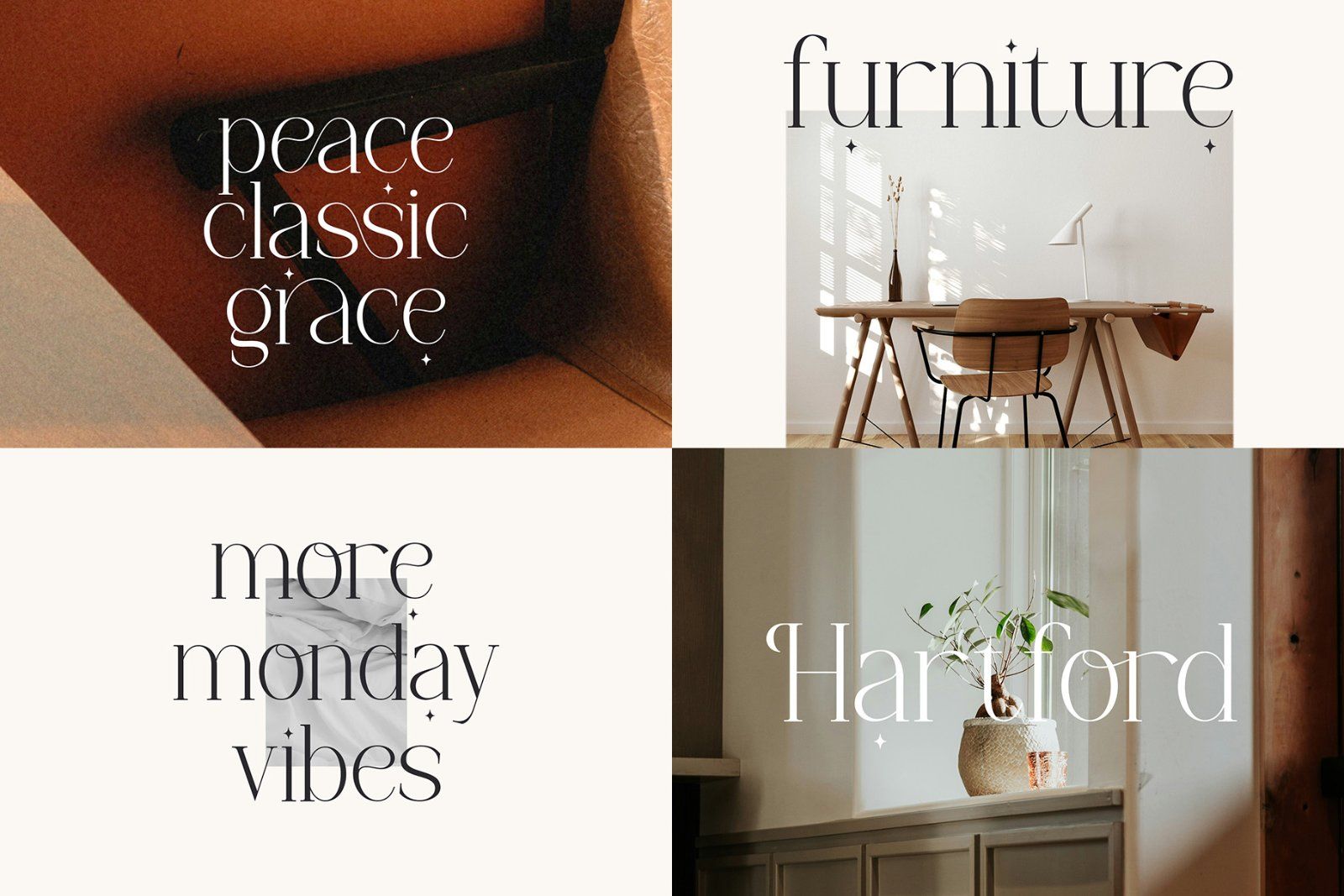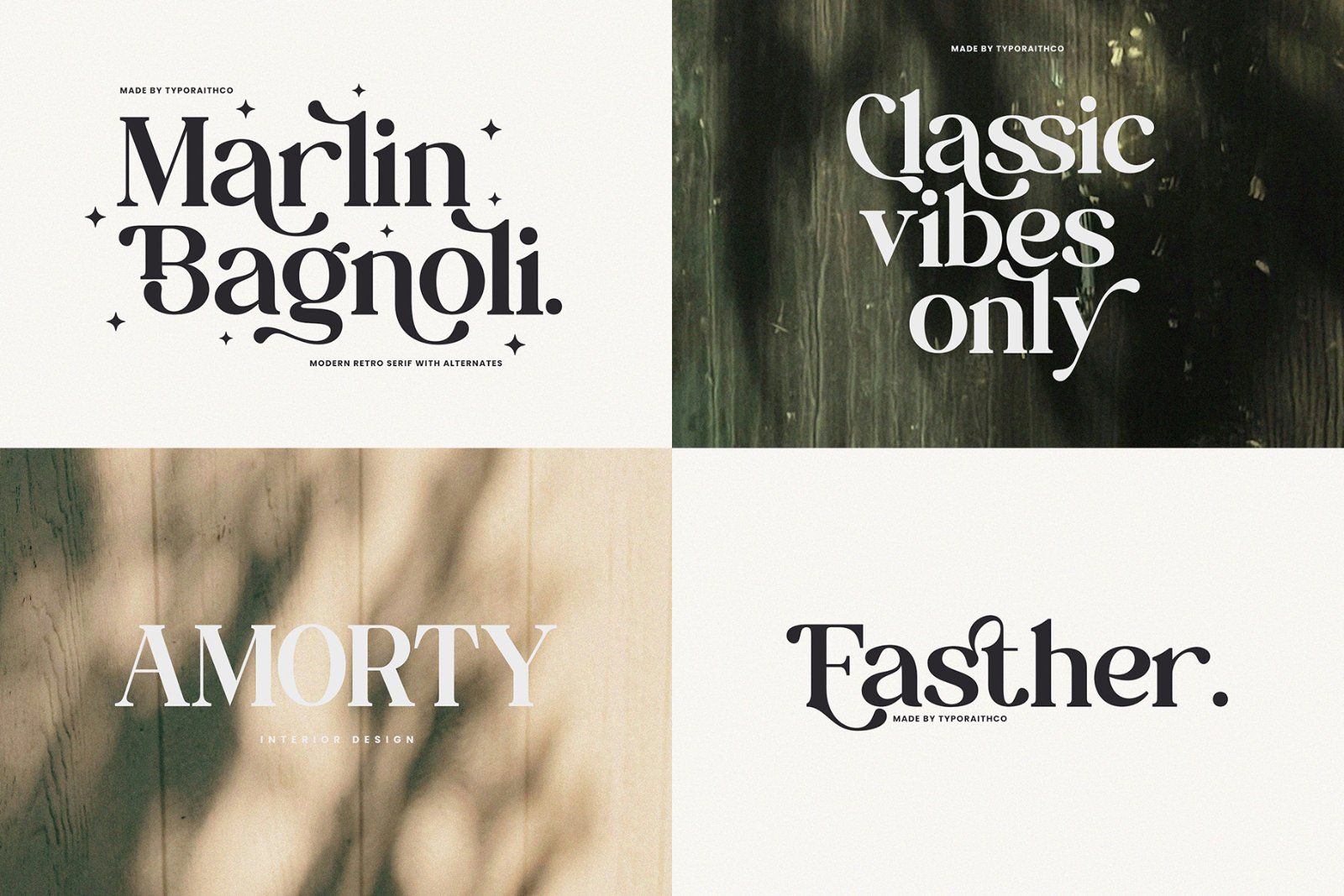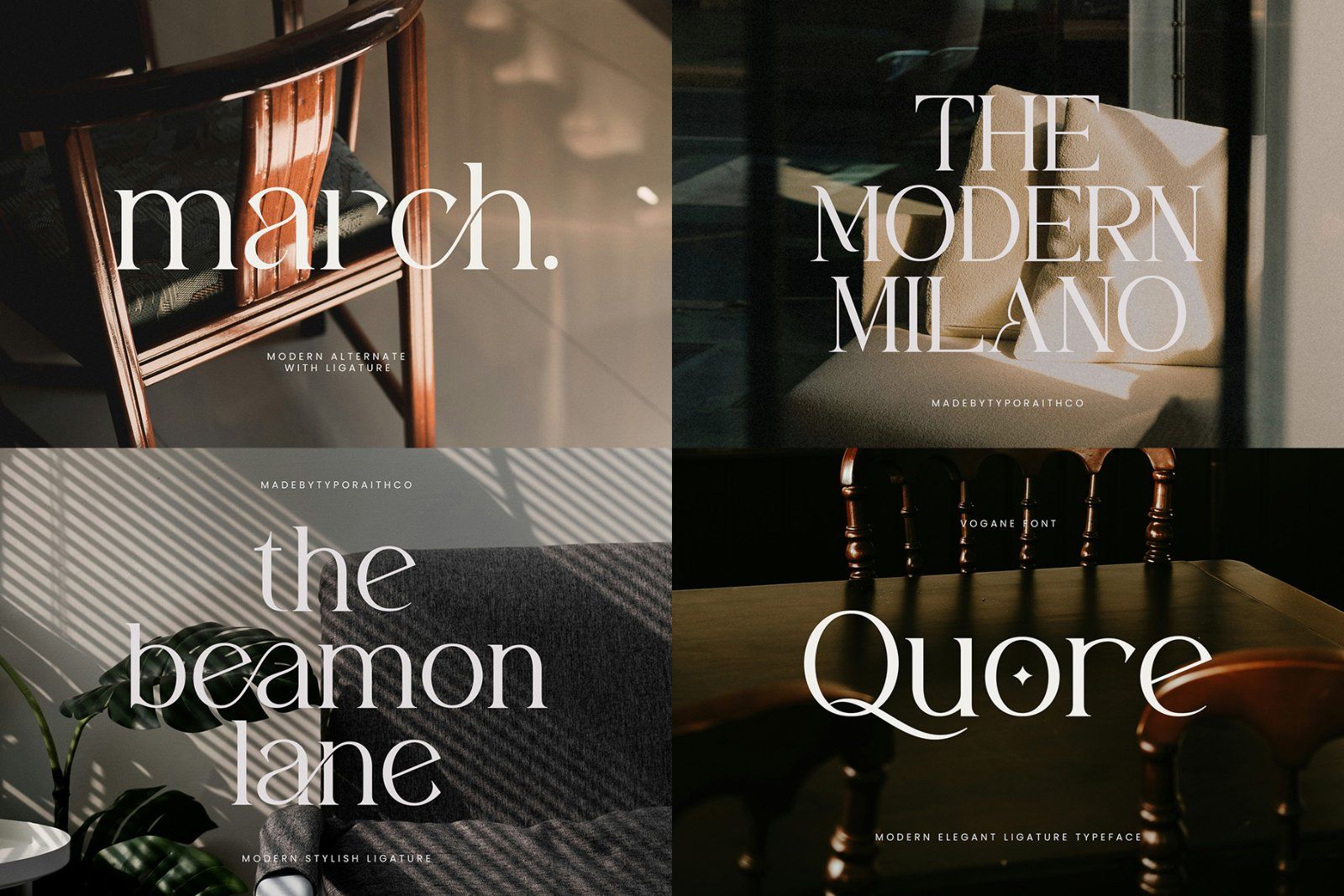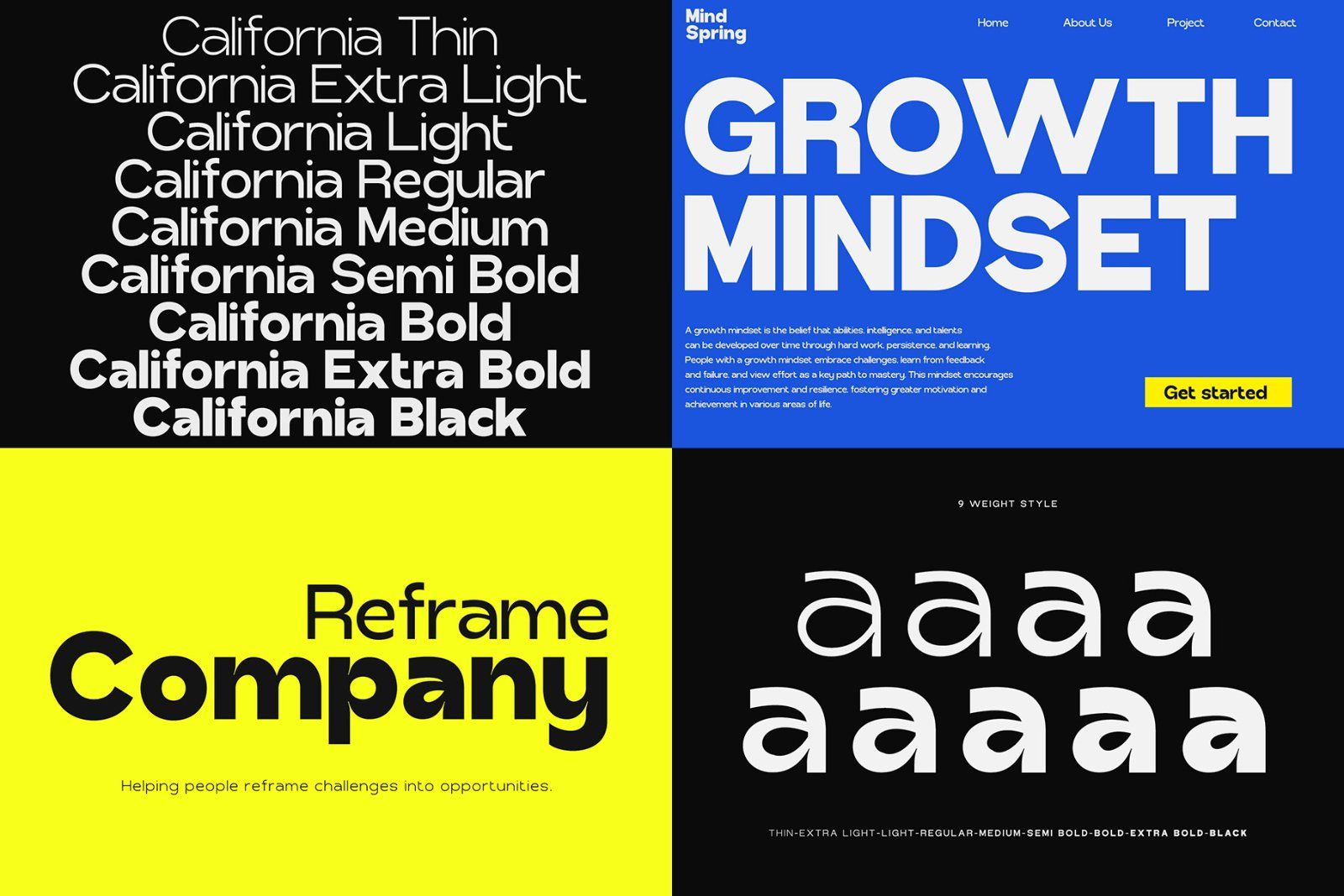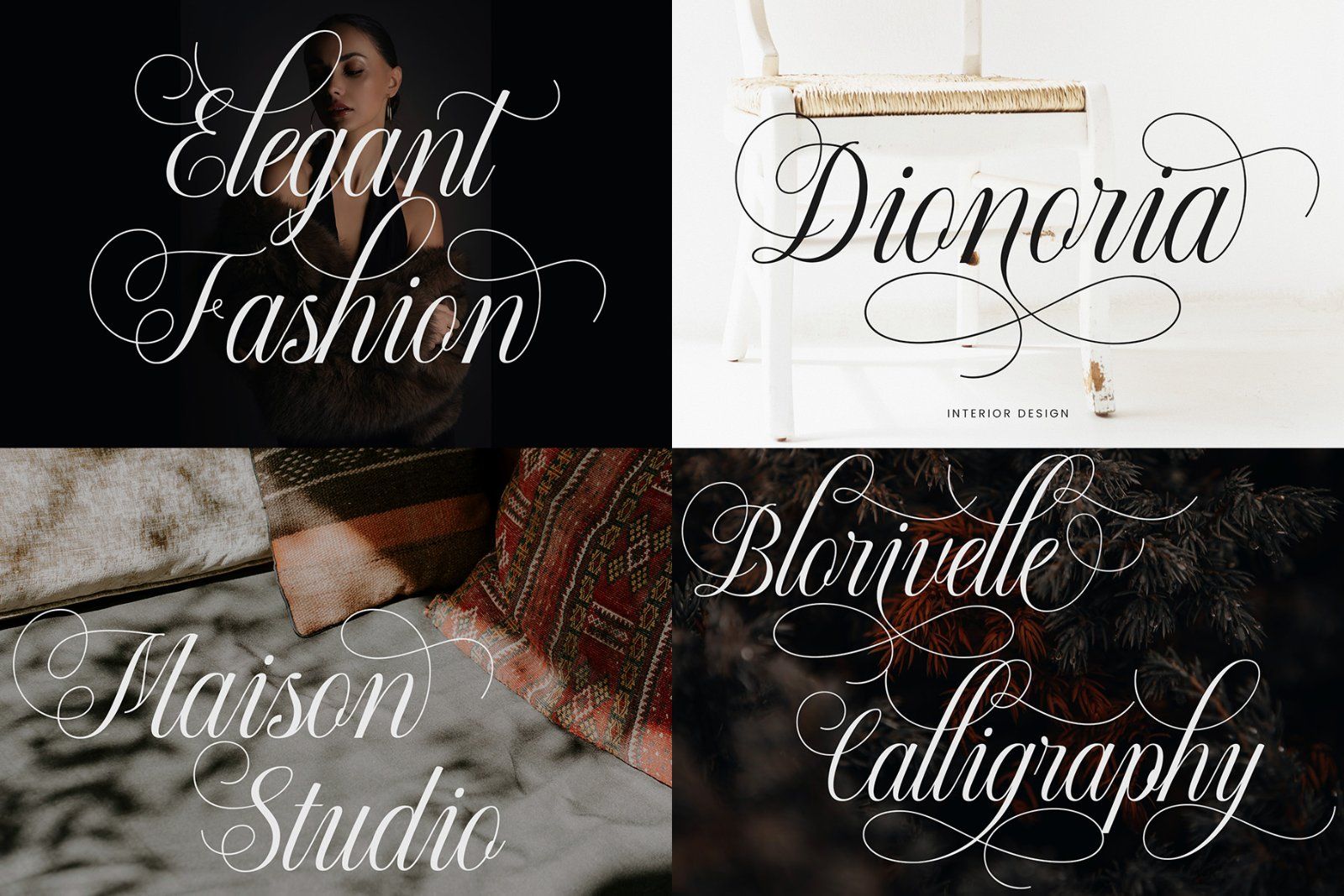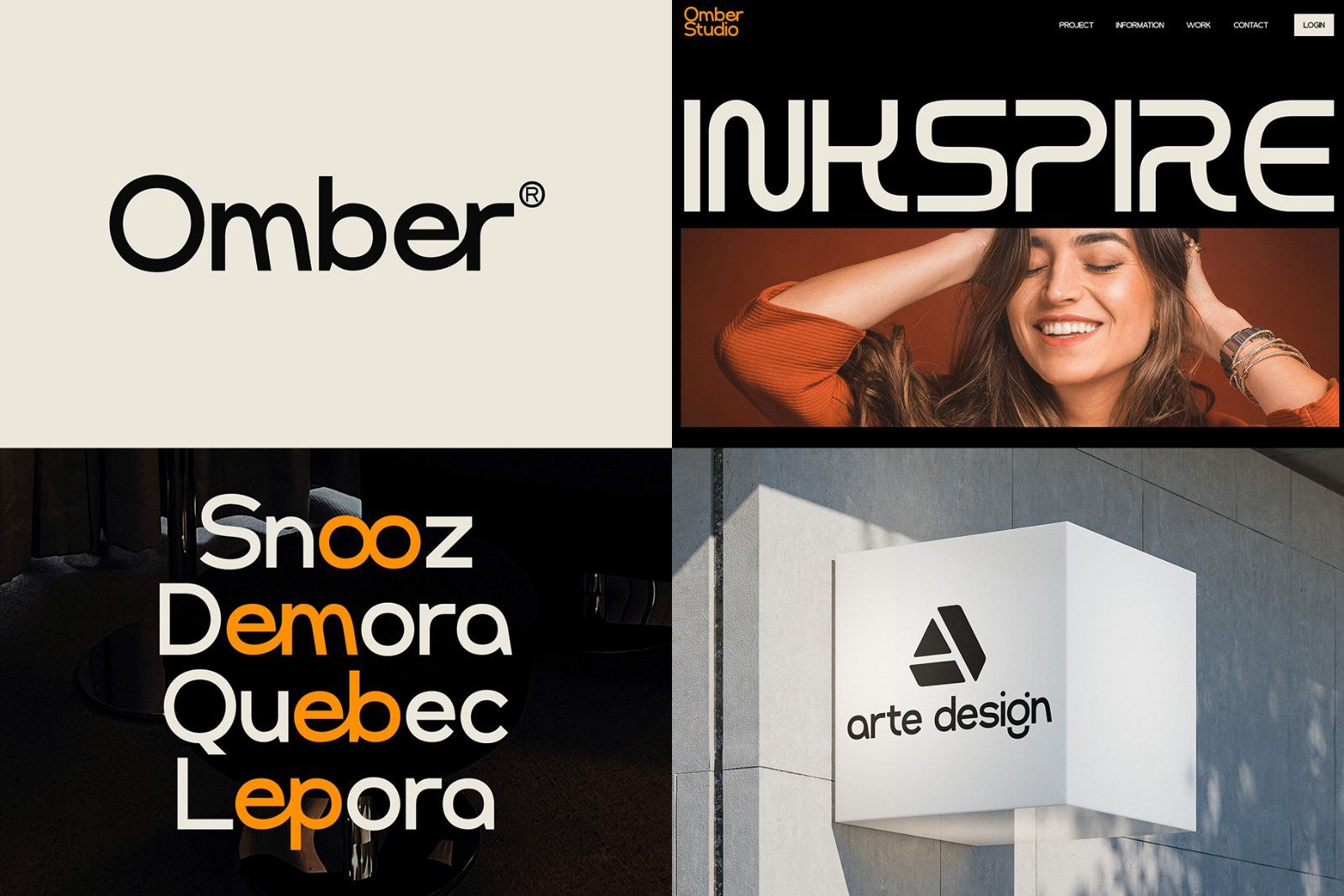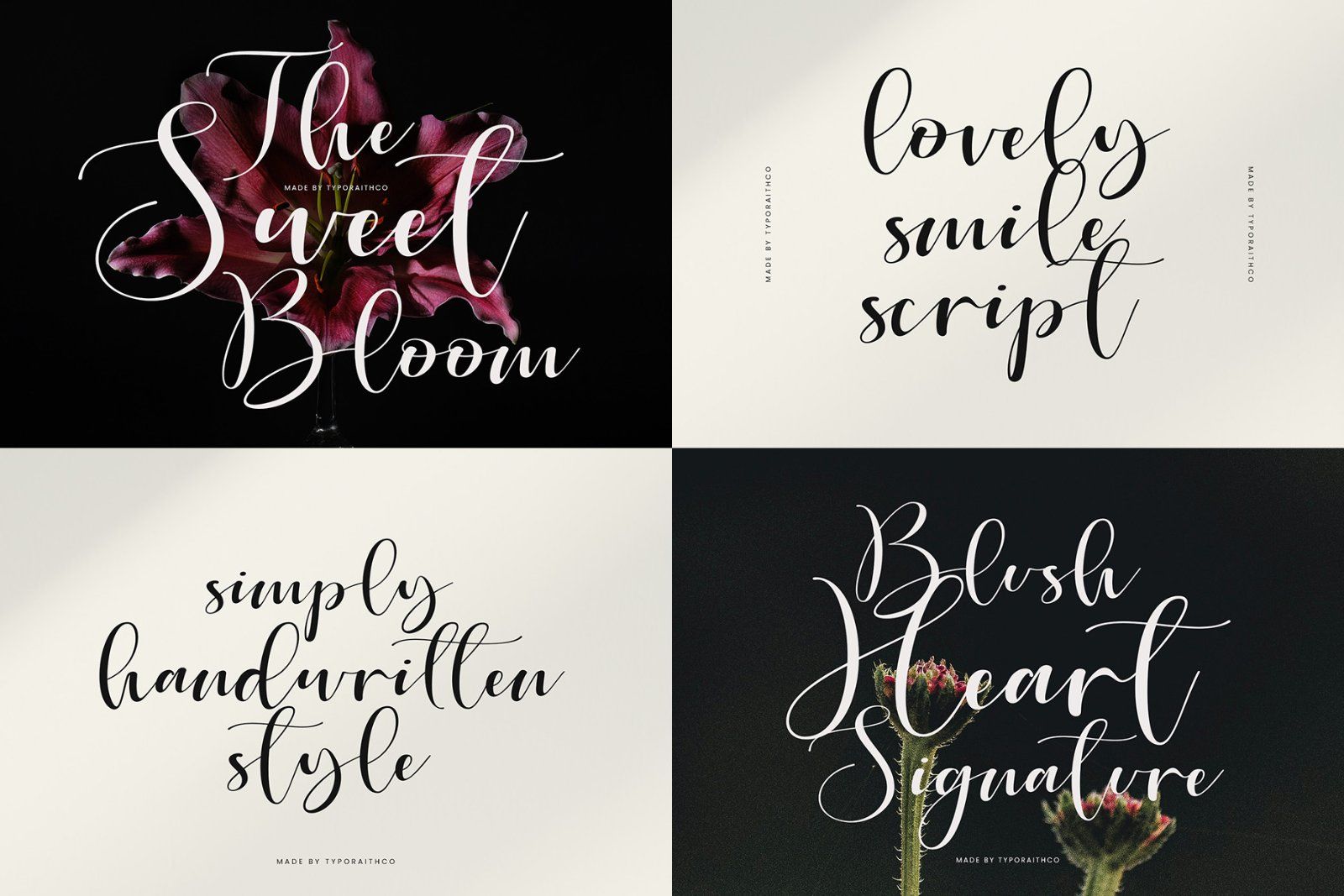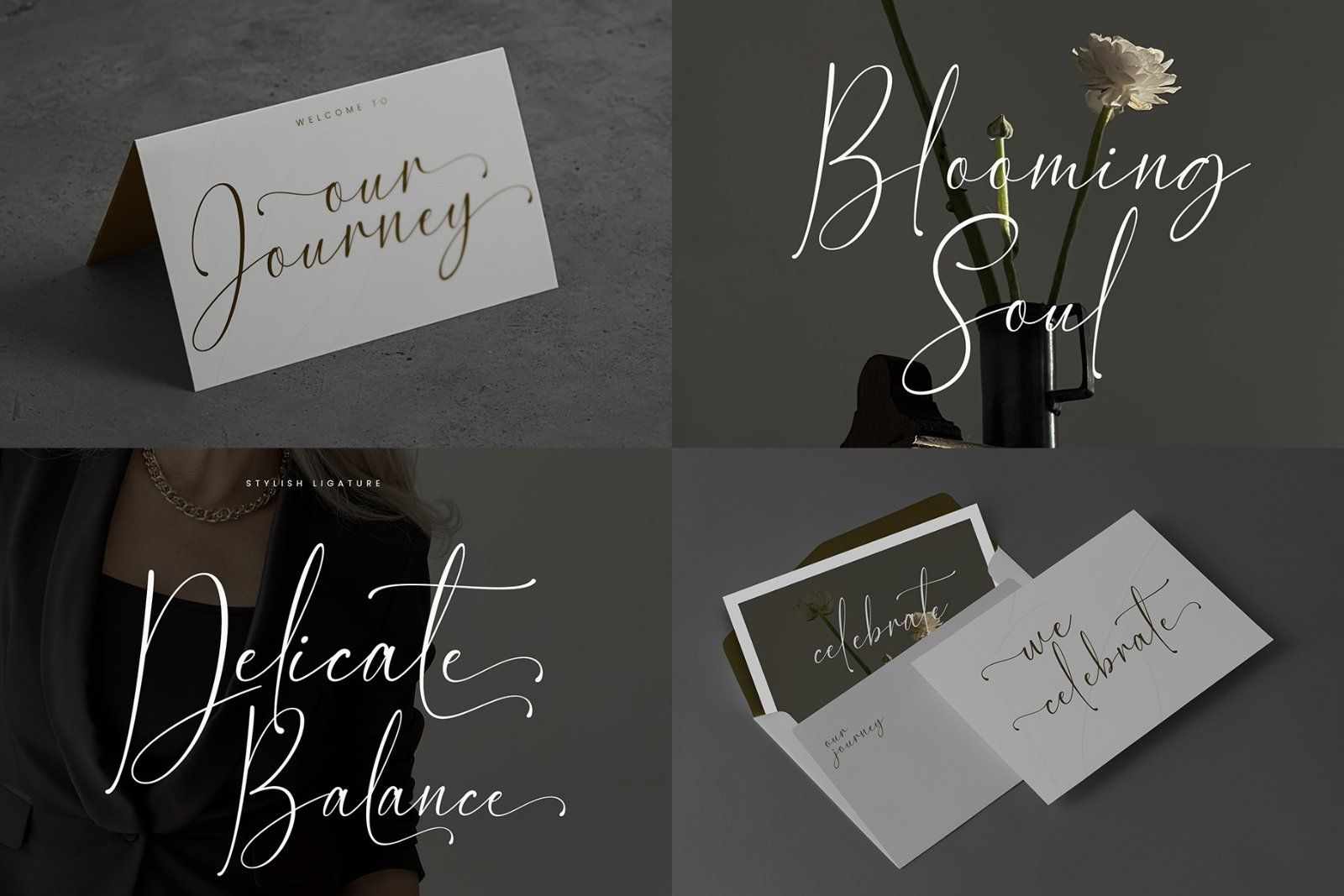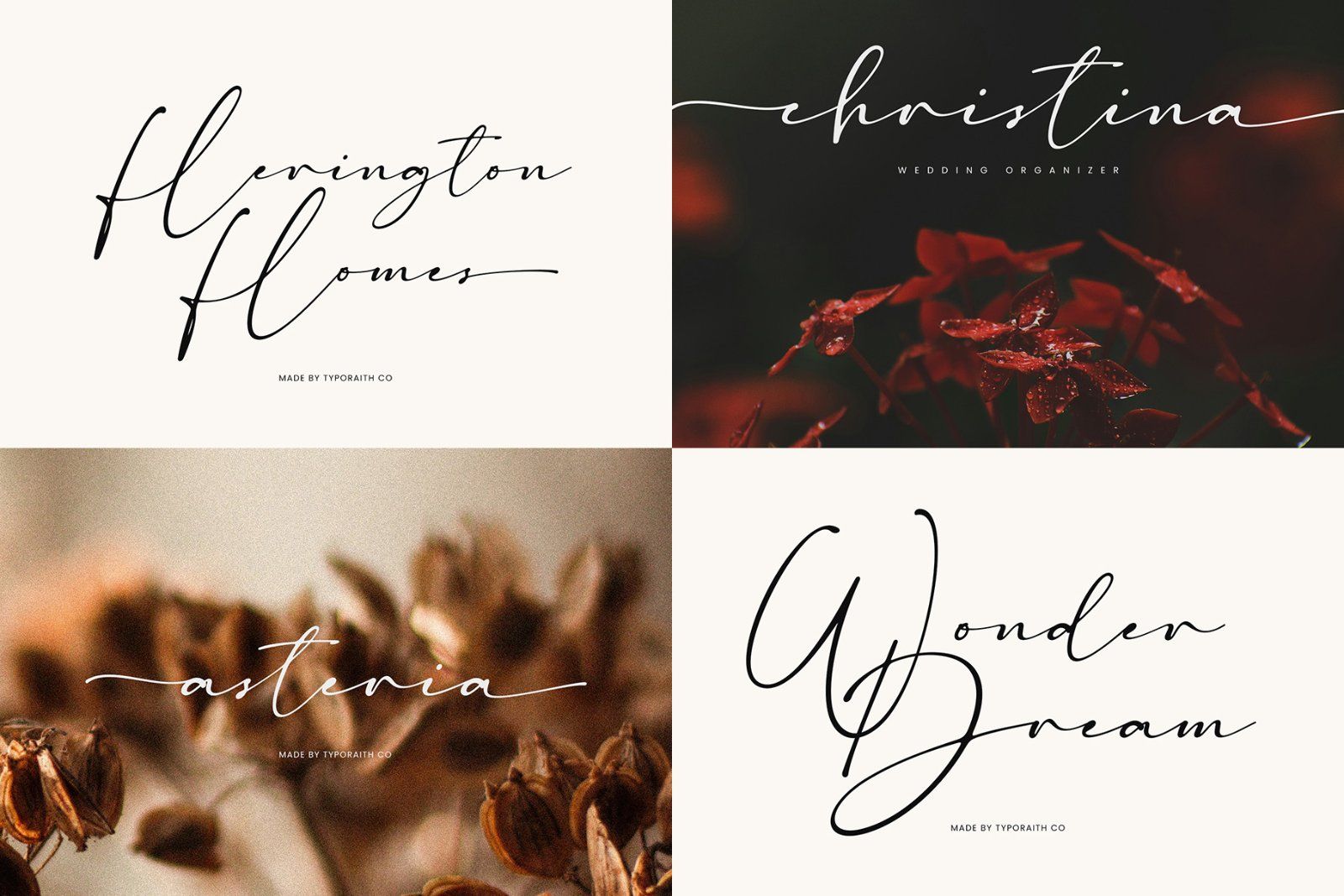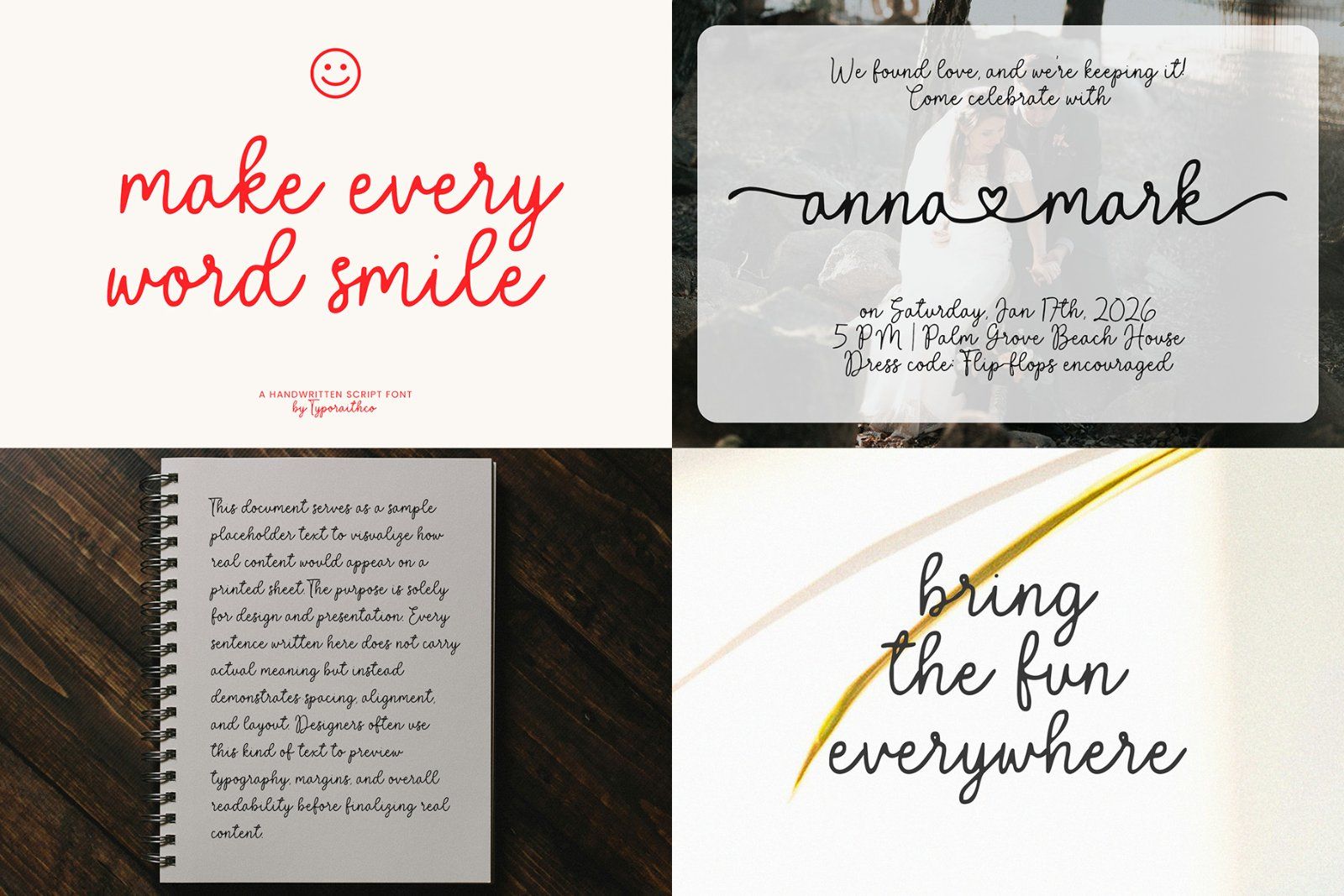
Elevate your design projects with the Elegant Font Bundle a curated collection of 20 premium fonts that blend sophistication, modernity, and timeless beauty. This bundle features a variety of script, serif, and sans-serif styles perfect for branding, editorial design, packaging, wedding invitations, and luxury logos.
Each typeface is crafted with attention to detail, offering stylish ligatures, alternates, and multilingual support to ensure versatility for every creative project. From bold statements to delicate signatures, this collection is designed to bring an elegant and professional touch to your work.